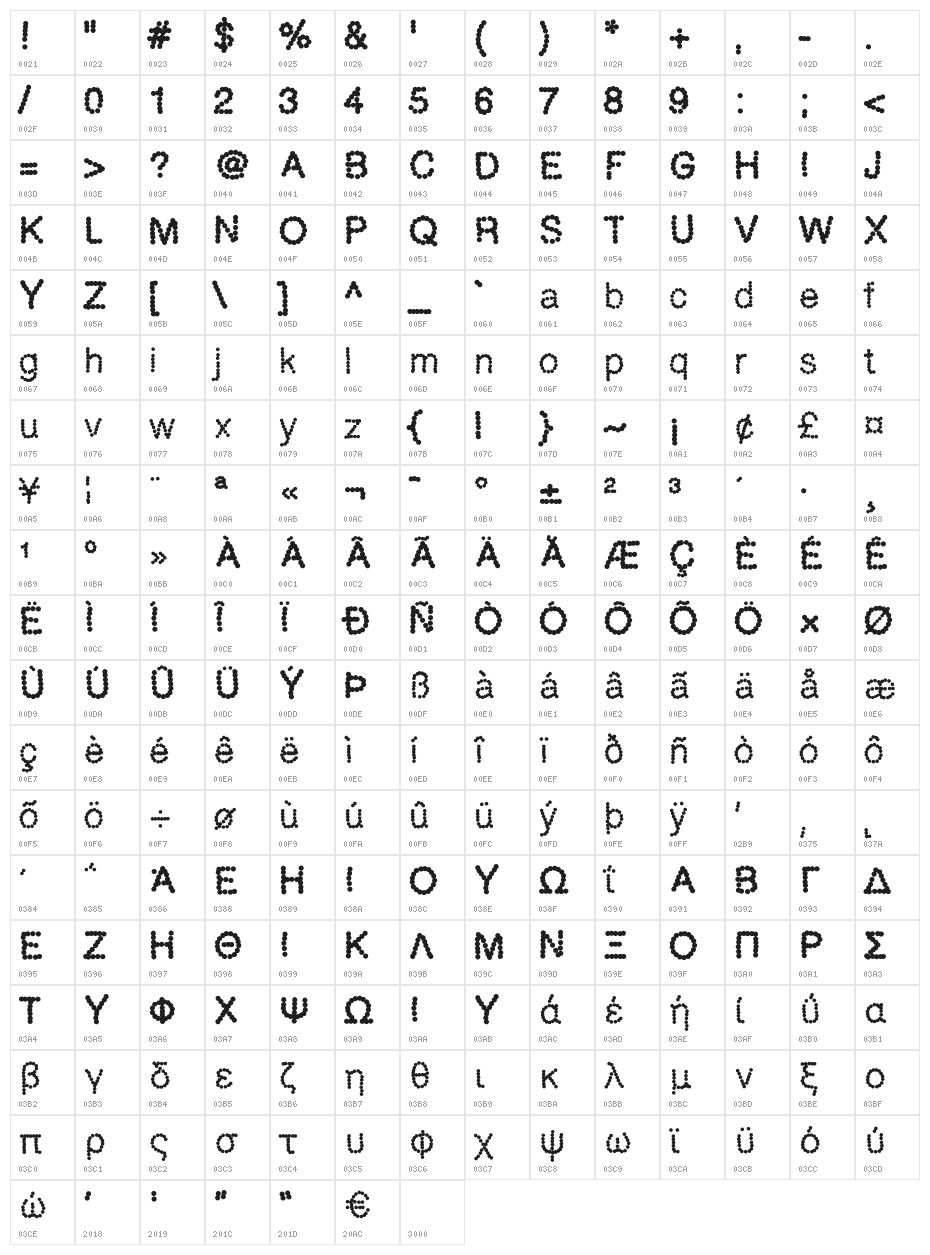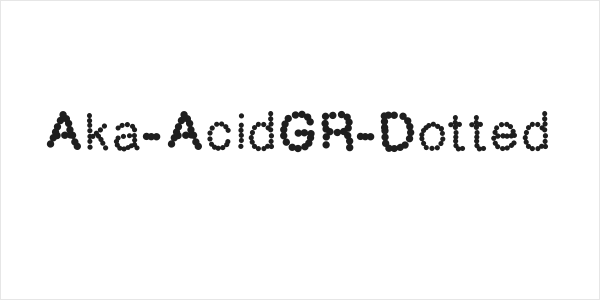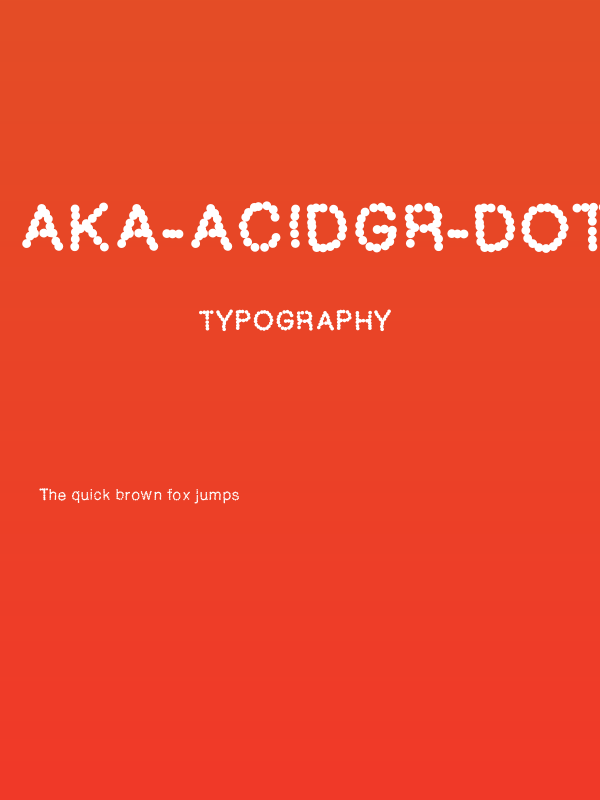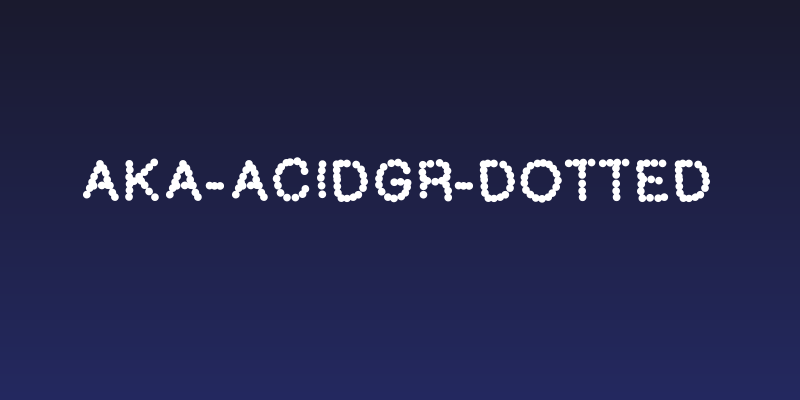
Aka-AcidGR-Dotted Font
Aka-AcidGR-Dotted Description
This font features a unique dotted design where each character is composed of a series of evenly spaced dots, creating a playful and eye-catching effect. The uppercase and lowercase letters, as well as numbers and special characters, maintain a consistent circular dot pattern that gives the font a cohesive look. The style is modern and decorative, making it suitable for creative projects that require a distinctive and fun appearance. The uniformity in dot size and spacing ensures readability while adding a touch of whimsy.
| Proposed Projects | Ideal for children's books, playful branding, event invitations, and creative posters. |